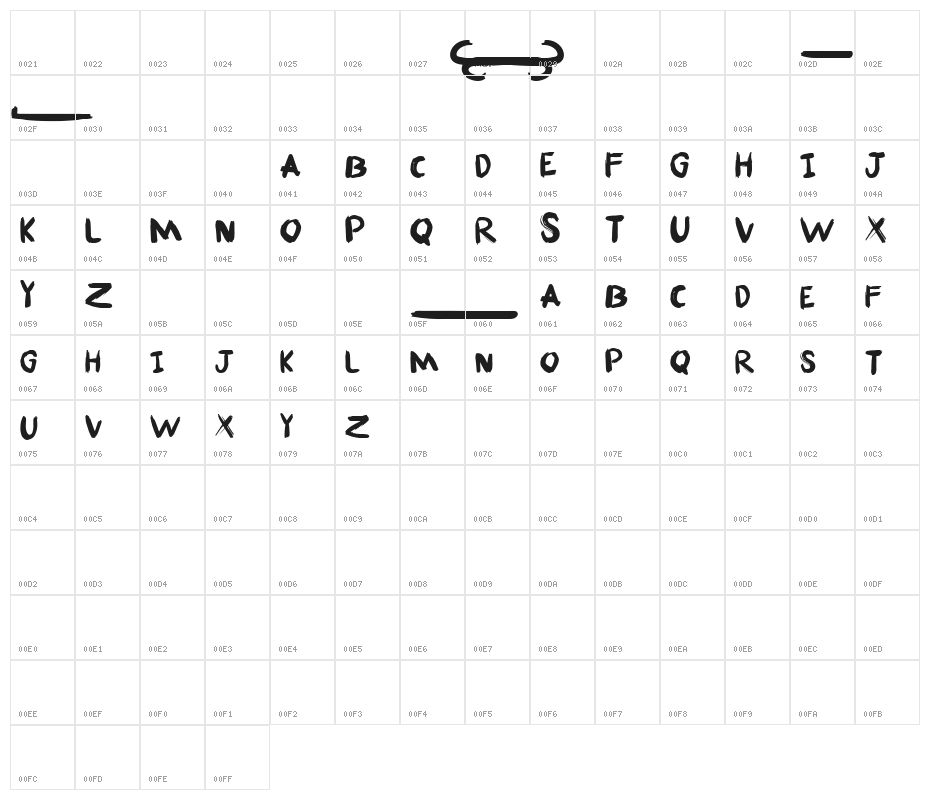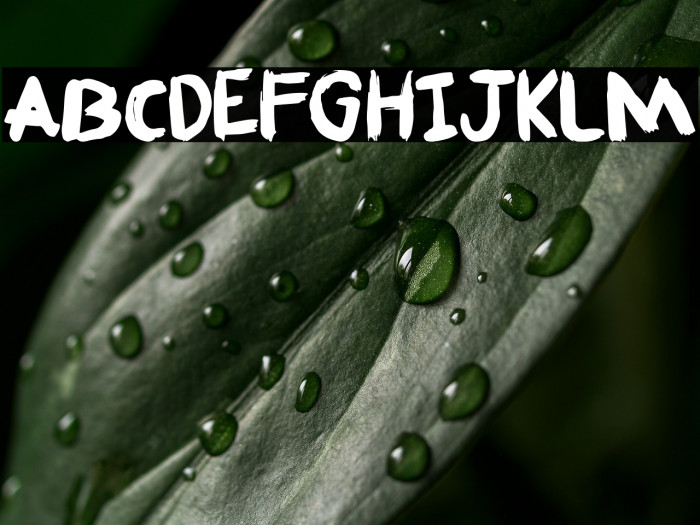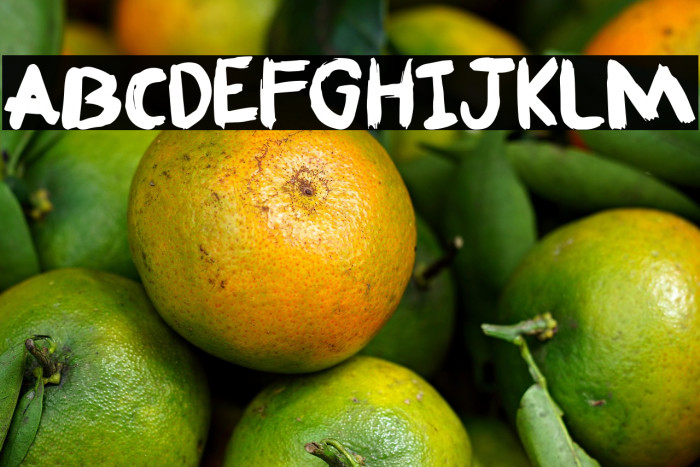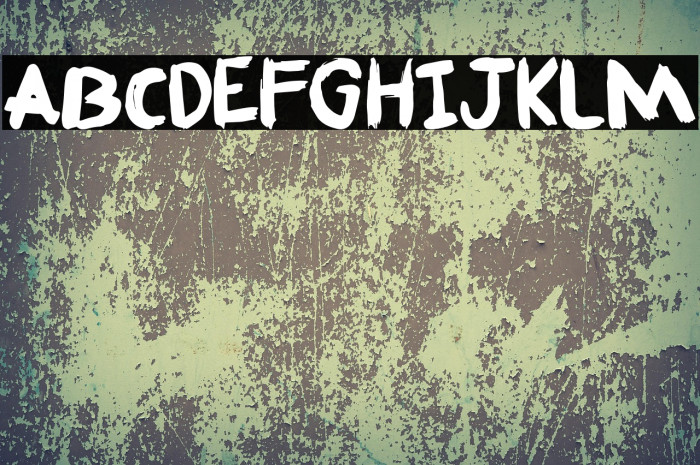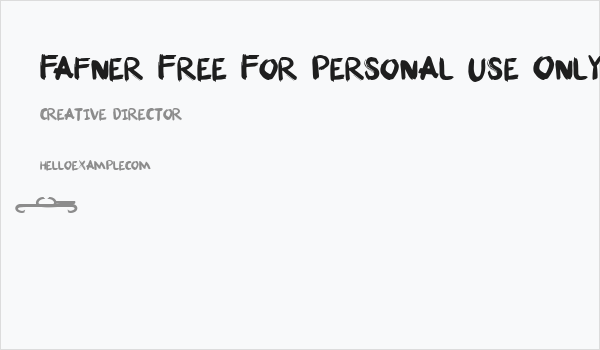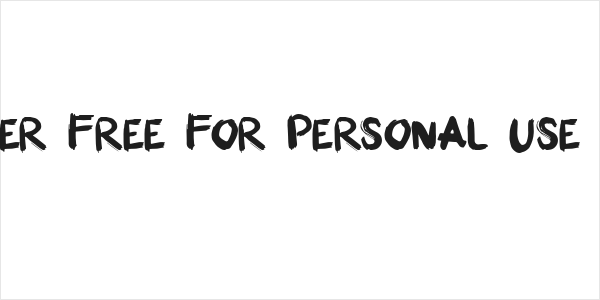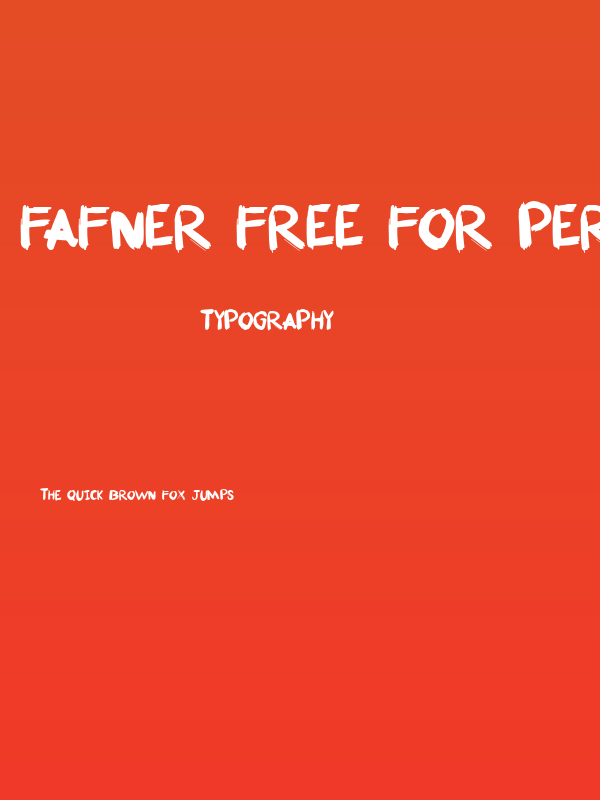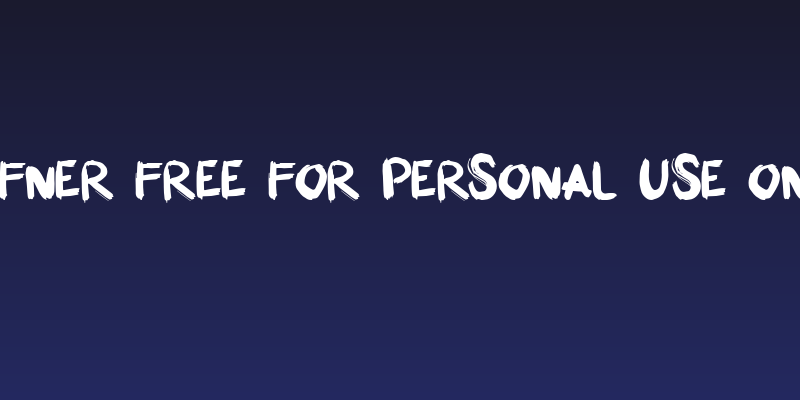
Fafner Free For personal use Only Font
Fafner Free For personal use Only Description
This font features a bold and expressive style with a hand-painted appearance, characterized by thick, uneven strokes that give it a dynamic and energetic feel. The letters have a slightly rough texture, adding to the handcrafted aesthetic. The uppercase letters are prominent and impactful, making them suitable for attention-grabbing designs. The font's unique style is reminiscent of brush strokes, providing a sense of movement and fluidity. Its artistic flair makes it ideal for creative projects that require a bold statement.
| Overall Style | Artistic, Expressive |
| Proposed Projects | Ideal for posters, logos, album covers, and any project needing a bold, artistic touch. |